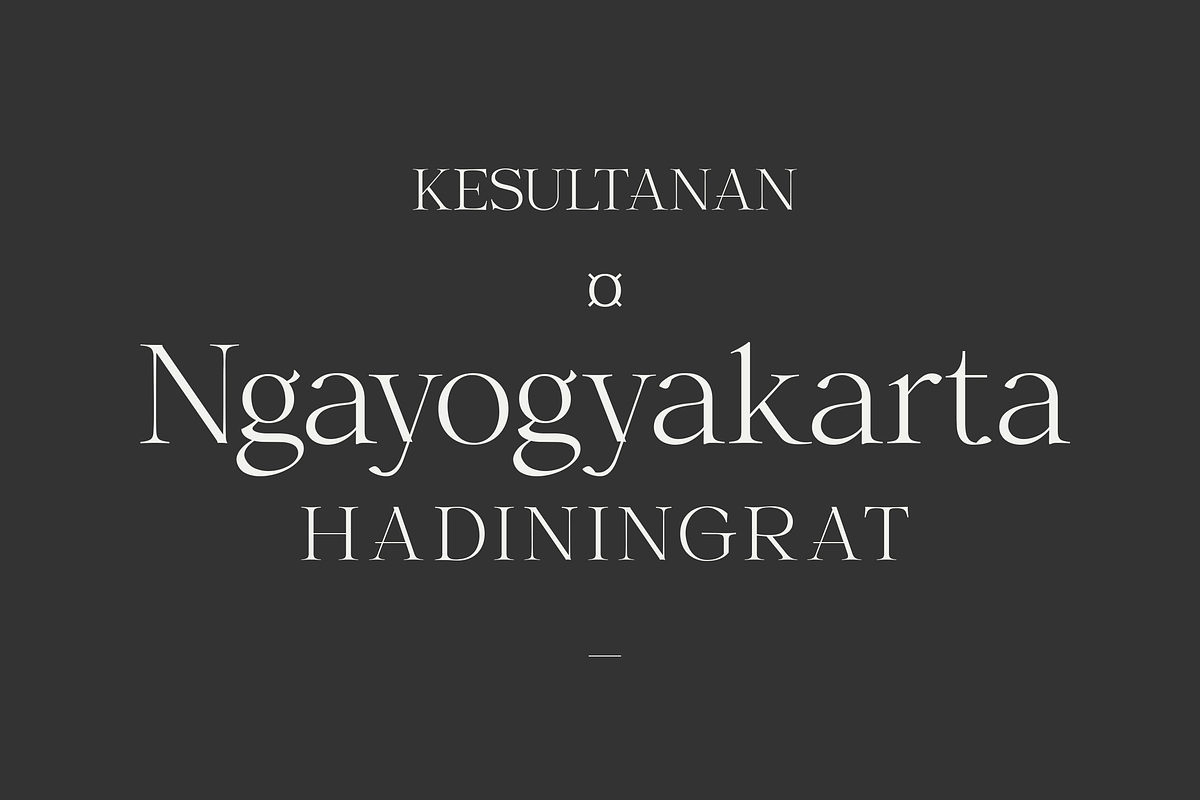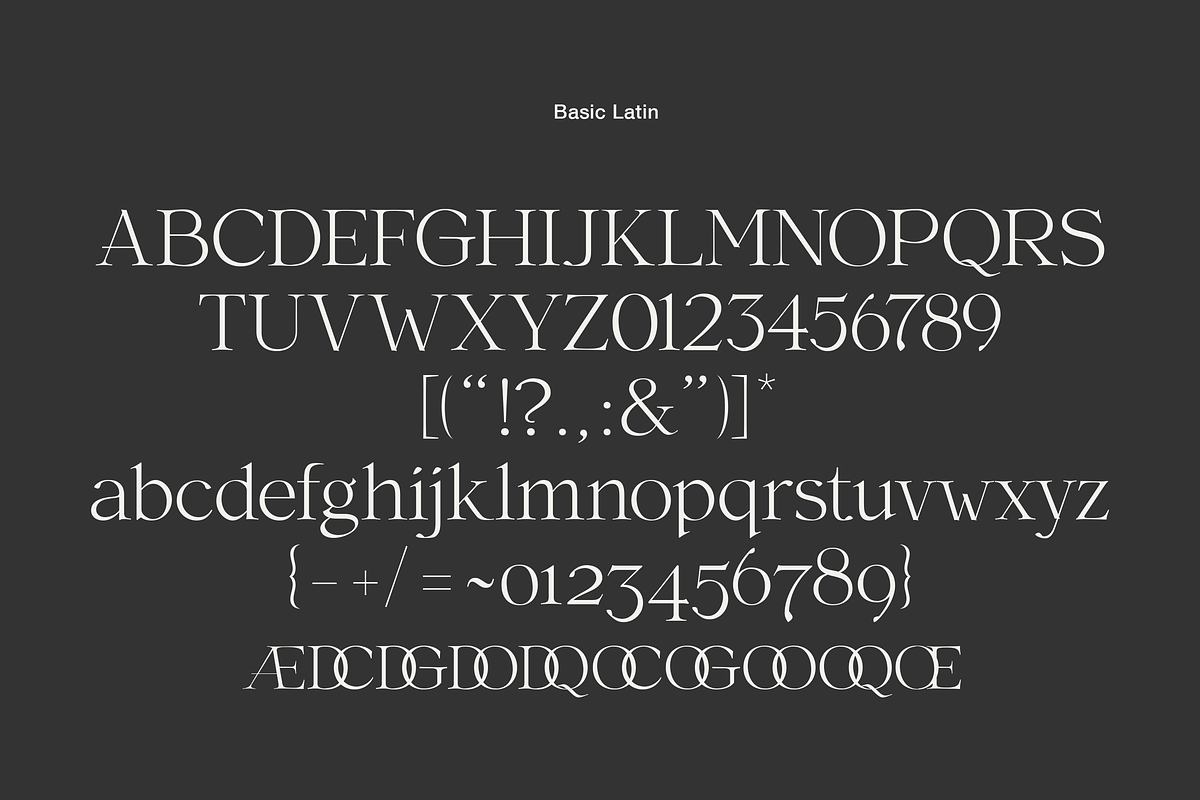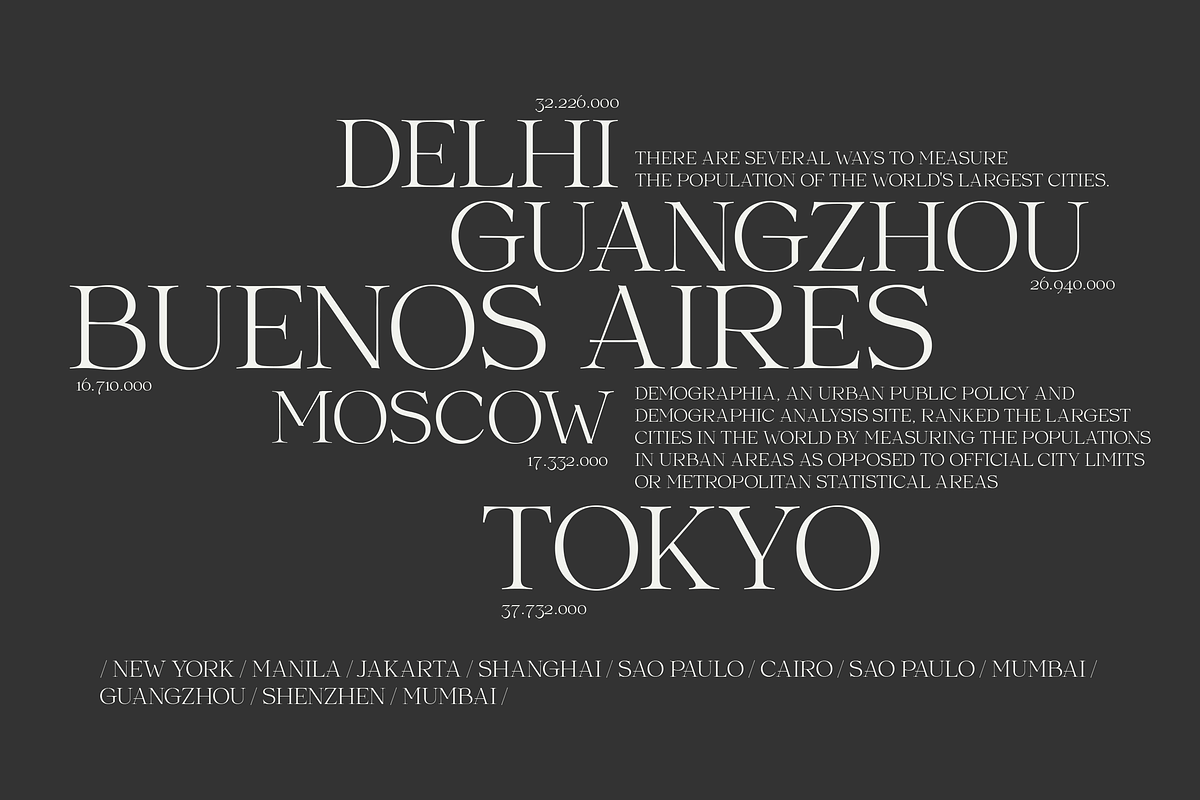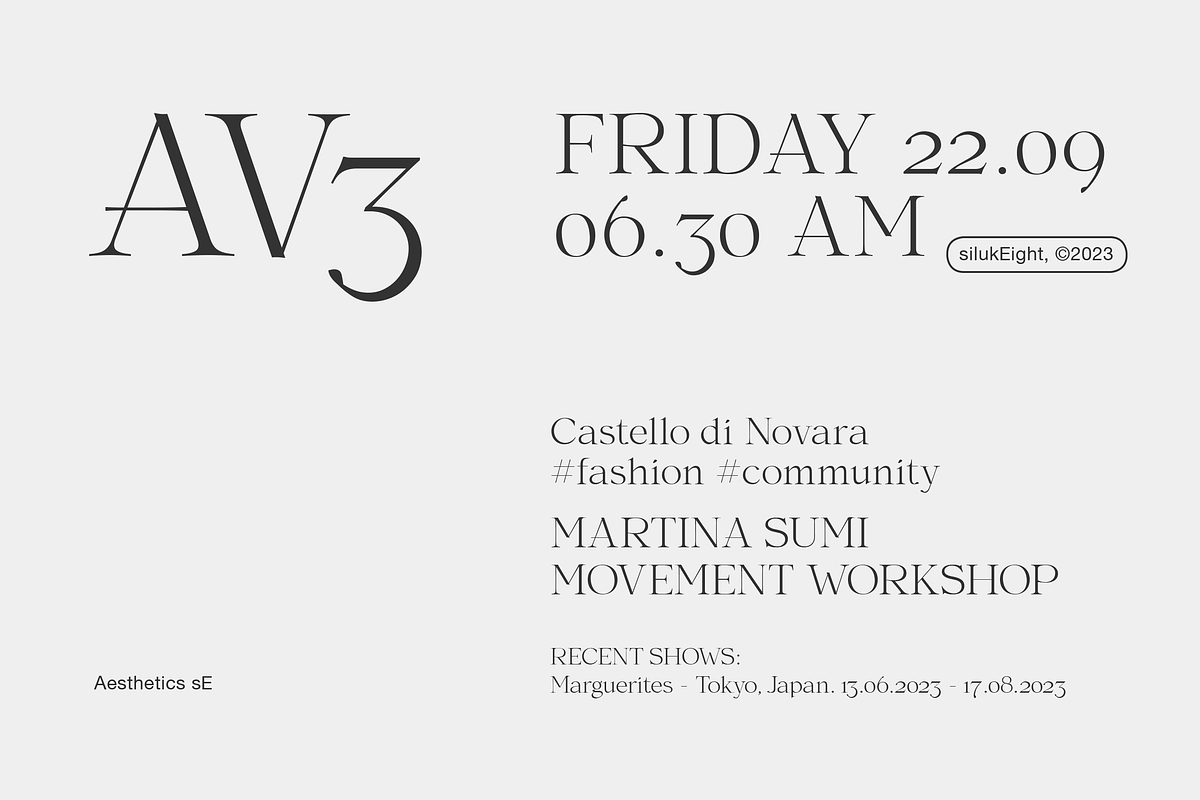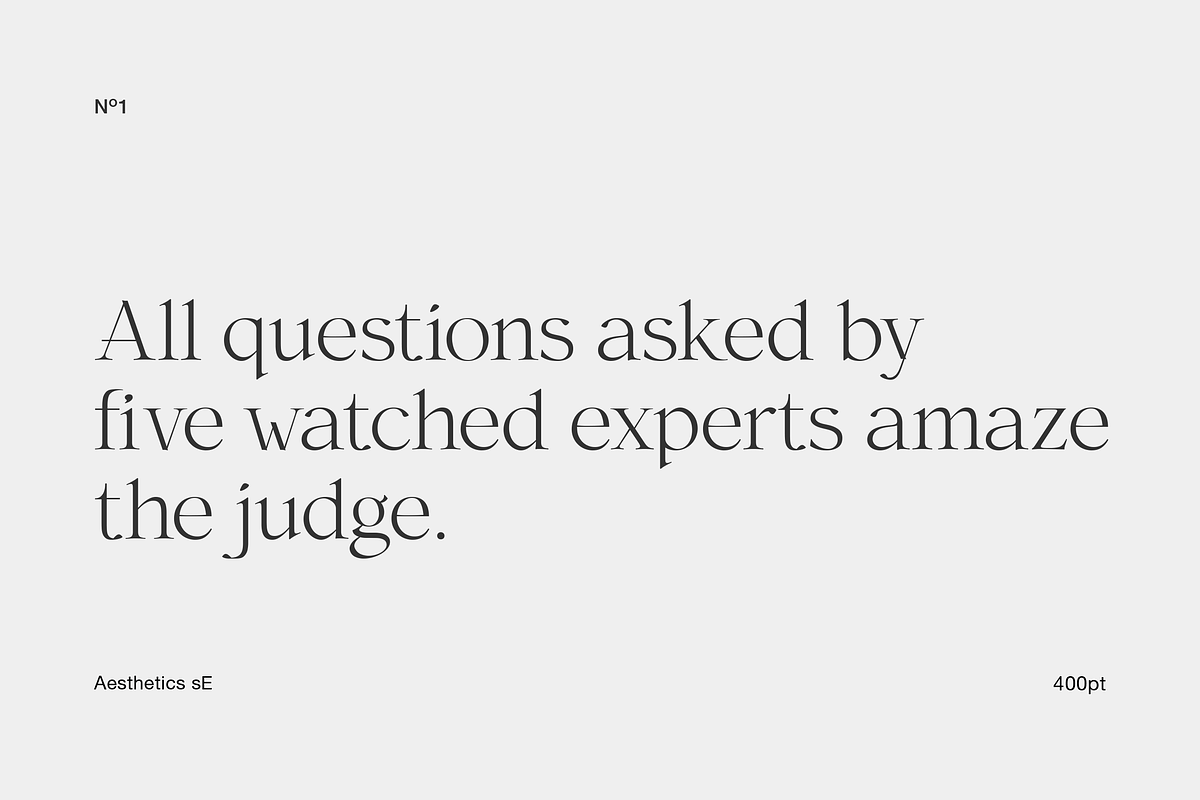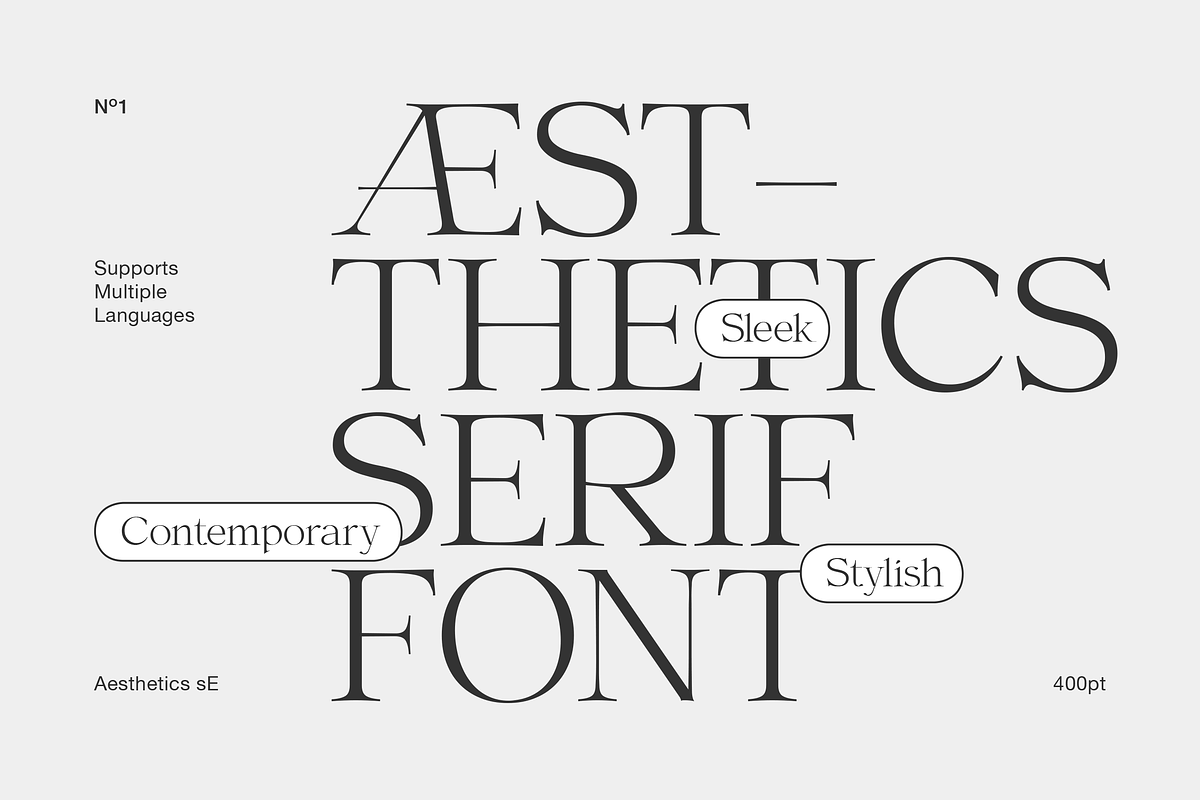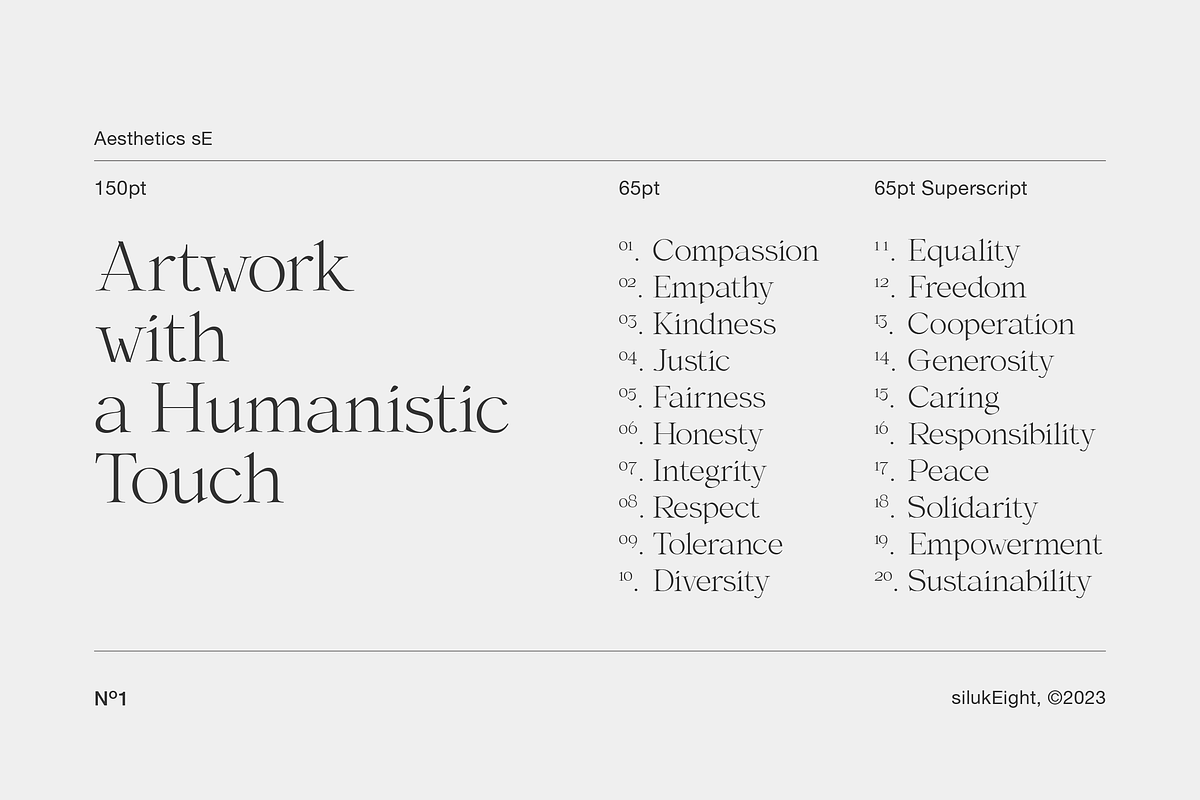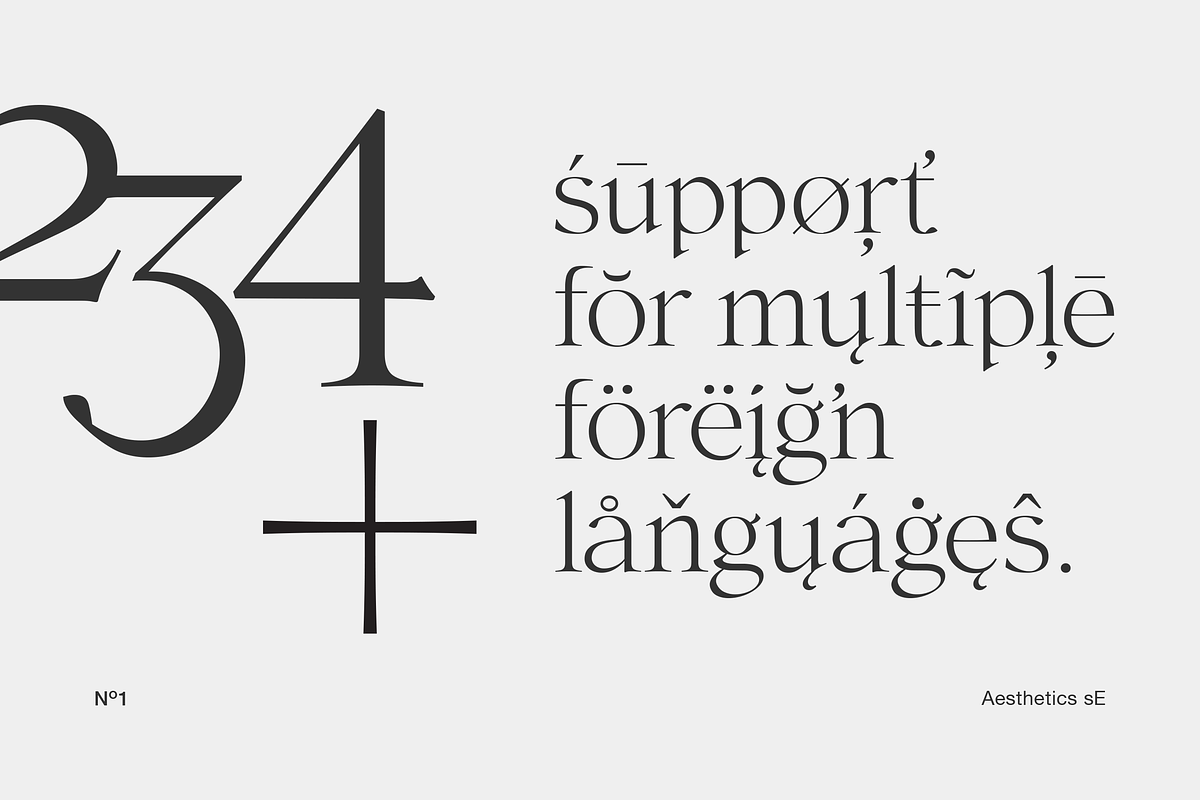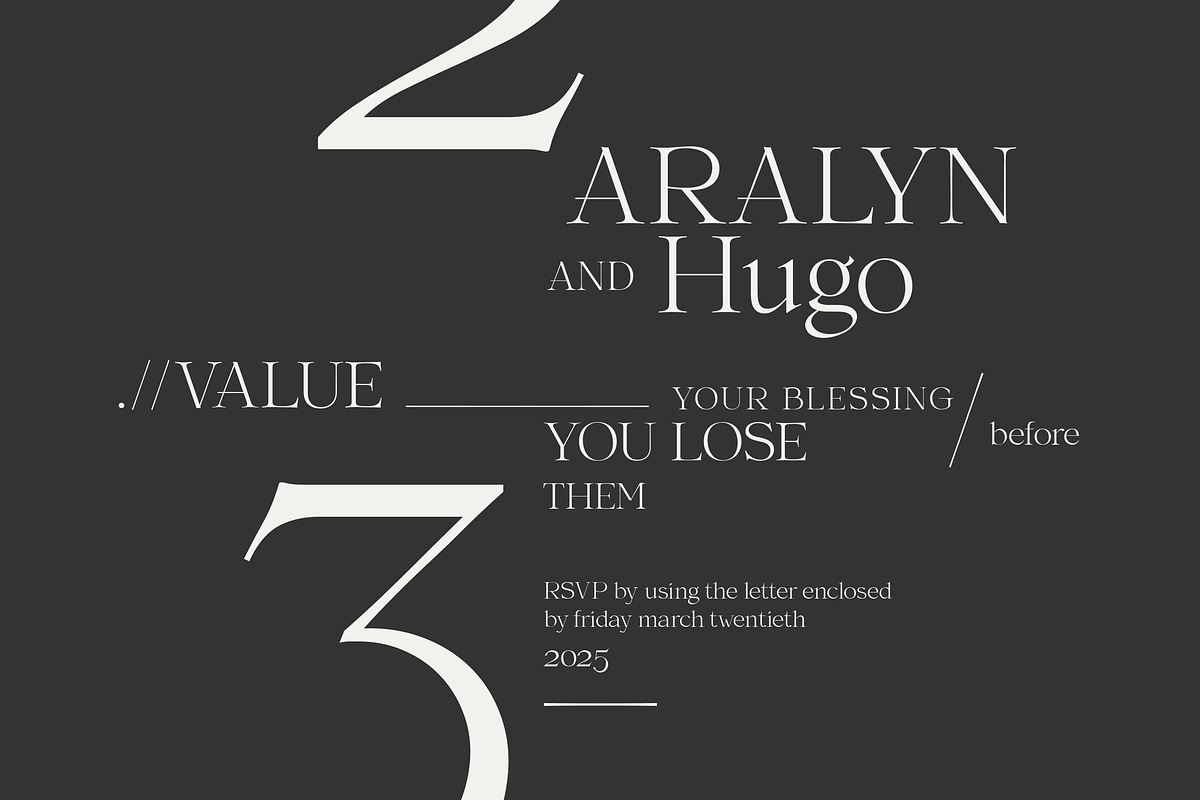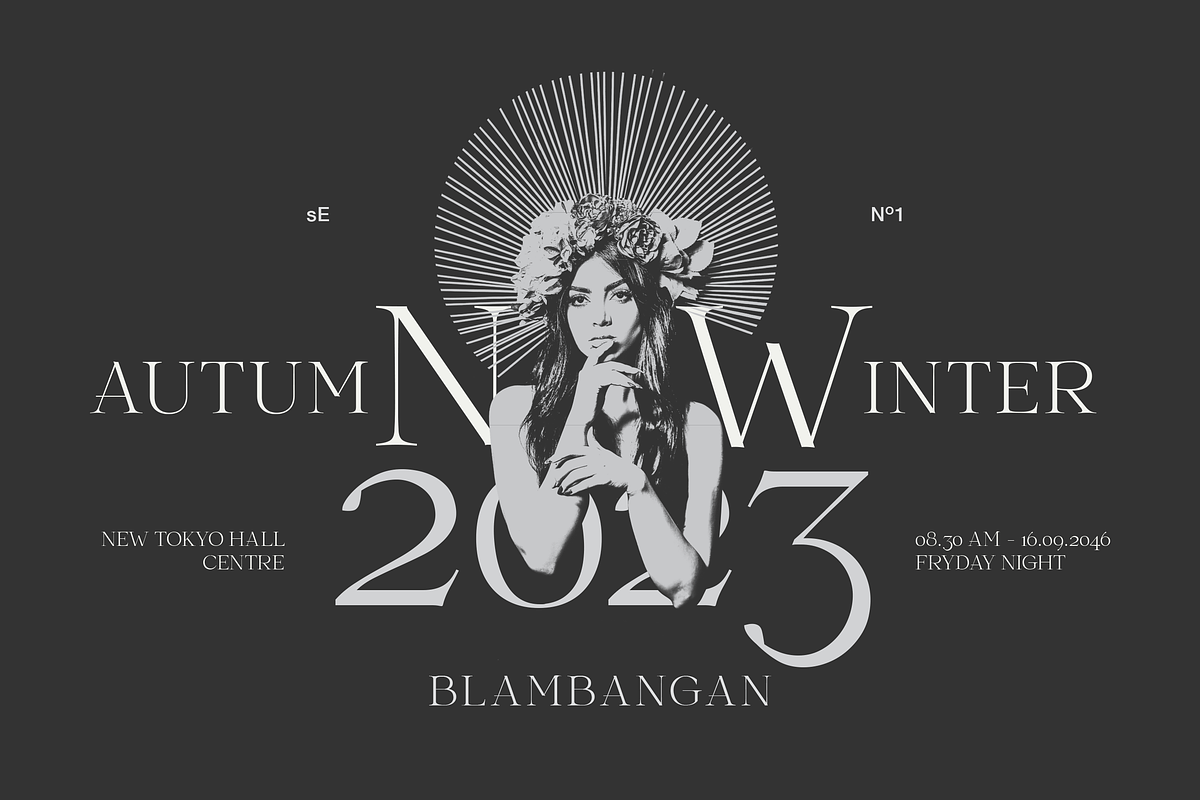
Aesthetic sE
Crafted to perfection, this typeface exudes timeless elegance and sophistication, making it an ideal choice for a wide range of creative endeavors. With its balanced thin and thick lines, "Aesthetic sE" showcases the perfect harmony between legibility and aesthetic appeal. Whether you're working on branding, editorial layouts, or invitations, this font's classic serifs and graceful curves effortlessly add a touch of professionalism and style. From captivating headlines to captivating body text and captivating logos.
- Alternates & ligatures
- Suitable for Headlines, Logotypes, Signs, Posters, Letterhead, website and many more.
- Support International Language